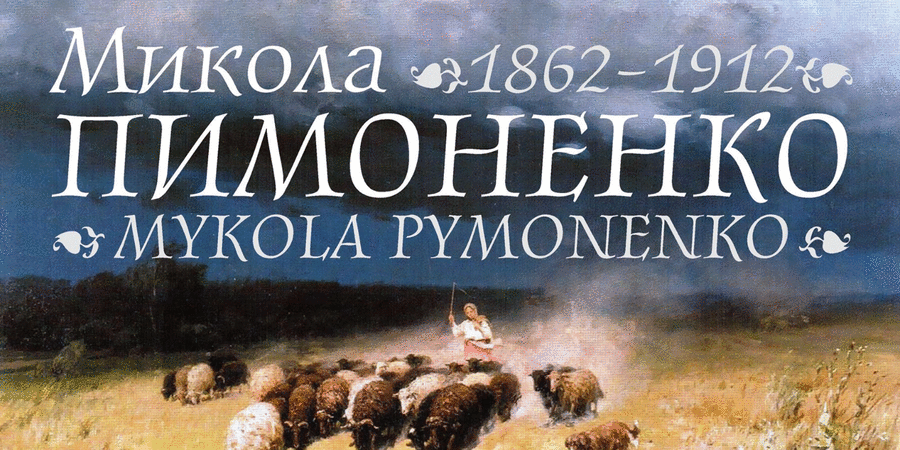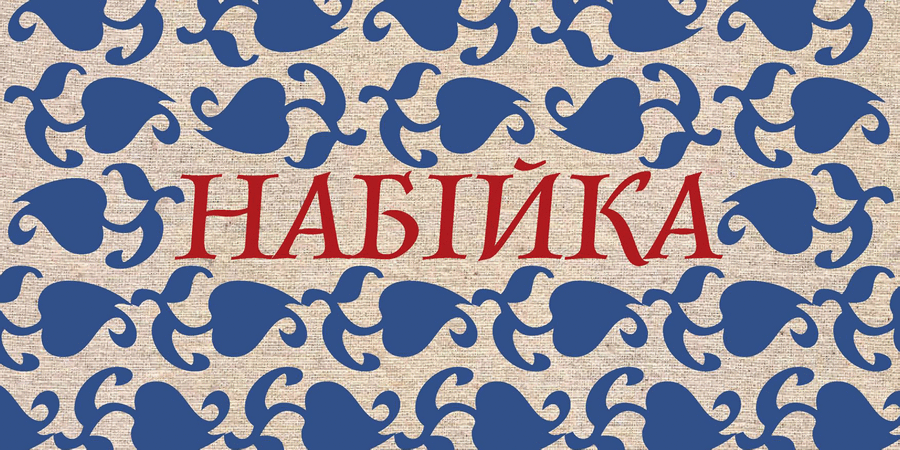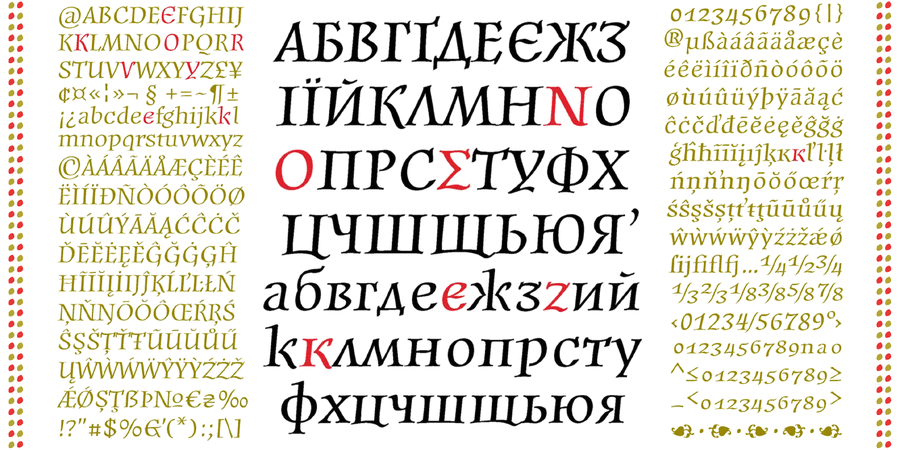
About Yurch1Yurchyshyn One is a very "artistic" typeface, based on calligraphic letterings of outstanding book artist Volodymir Yurchyshyn. This sophisticated, slightly inclined, irregular calligraphic antique, has easily recognizable Yurchyshyn’s style. It is intended for the design of all that associated with fine arts, literature, poetry and gives a certain exclusive artistic sound to everything it touches. The extended character set of Latin, Cyrillic, Greek alphabets allows you to type in almost all European languages. Regular and Semibold styles increase the range of possible fontsizes supported. In addition to purely display works, it is possible to use as an extraordinary antique for the texts, like poetry. Alternative glyphs will help you to give more or less Ukrainian historical appearance to the text. Thanks to the indispensable help of Sergiy Tkachenko, opentype-features were generated. The typeface was designed by Victor Kharik and Gennady Zarechnyuk in 2006–2017.
Associations for font family Yurch1Typeface personality and character:
noble, conservative, traditional, classic, pretentious, artistic, silver, sharp, masterful, refined, aristocratic, elite, high-quality, historical, humanitarian, dynamic, autumn, ancient, fairy, beautiful, expressive, distinctive, musical, rhythmic, plastic, alive, agile, luxurious, poetic, golden
library, art, museum, literature, aesthetics, prose, poetry, music, heraldry, wine, silver, fall, tale, fairy tale, comme il faut, decoration, luxury, painting, trophy, reward, castle, bank note, concert, legend, securities, graphics, illustration, landscape, monument, memorial, gold, coin, tourism Typeface associated with age: